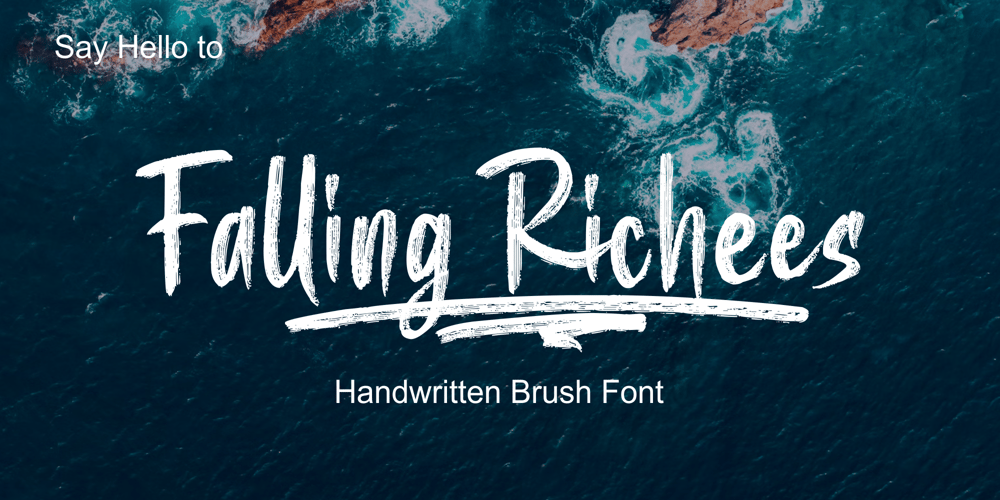
Falling Richees Font Family was designed by Zamjump and published by Zamjump. Falling Richees contains 1 styles and family package options. Falling Richees is a handwritten script with authentic dry brush imperfections. Falling Richees has a final letter combination to get the look you want :), besides Falling Richees also has a swash combination, to be placed under the writing you made, this is very easy to use, because this feature I intentionally made as an alternate type of letter lowercase. (see the example in the preview image)No special software is required to access any of the standard or alternative fonts – additional letters are provided in two forms 1. ending swash, 2. line swash :)WHAT IS INCLUDED:Falling Richees.ttfMulti languageEnding swashLine swashFor people with opentype-capable software: The alternatives can be accessed by turning on the ‘Alternative Style’ and ‘Ligatures’ buttons in Photoshop’s Character panel, or through any software with a glyph panel, e.g. Adobe Illustrator, Photoshop CC, Inkscape.I hope you have fun using Falling Richees !Happy creative!